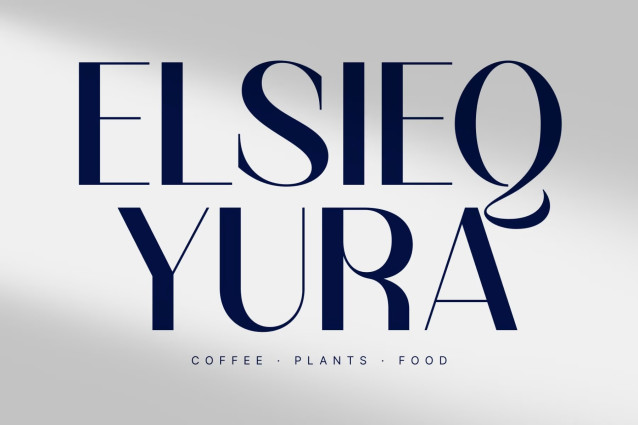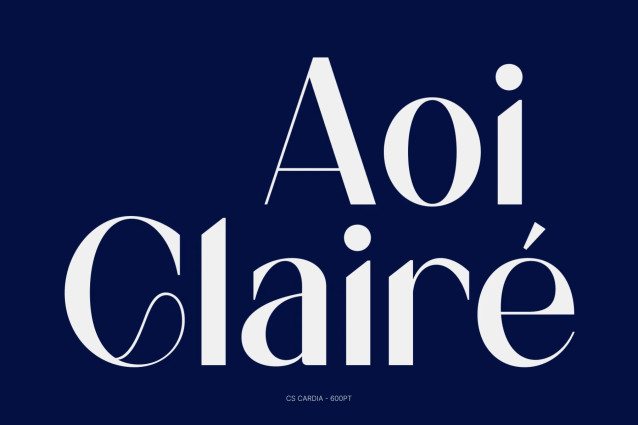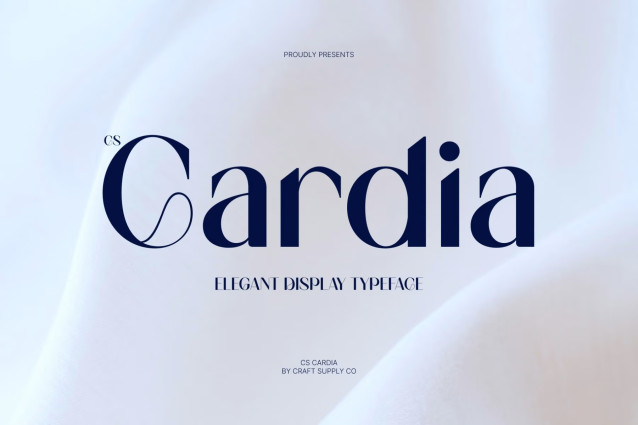
CS Cardia – Elegant Sans Serif Font
CS Cardia – Elegant Sans Serif Font: Where High Contrast Meets Timeless Sophistication
Refined Forms with Confident Presence
This is an elegant display sans serif font crafted with high-contrast letterforms that radiate confidence, clarity, and sophistication. Its refined proportions and clean structure create a luxurious visual rhythm, allowing every word to feel polished and impactful.
Modern Elegance with Classic Influence
This font delivers a typographic style that feels both modern and classic. Its high-contrast construction enhances visual drama while maintaining excellent readability, making it ideal for premium design applications that seek refinement and style. The result is a font that communicates elegance with effortless confidence.
Sophisticated Style with Versatile Appeal
This font makes adaptable across both bold headlines and refined branding systems. Its elegant structure enhances luxury aesthetics while preserving a clean contemporary tone, making it suitable for sophisticated visual identities and editorial compositions.